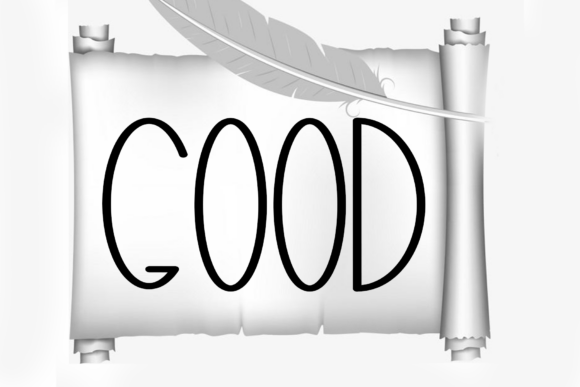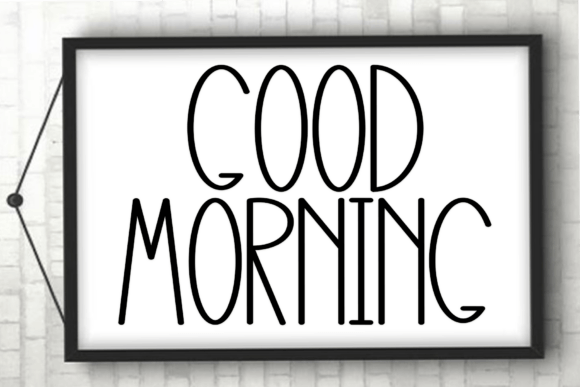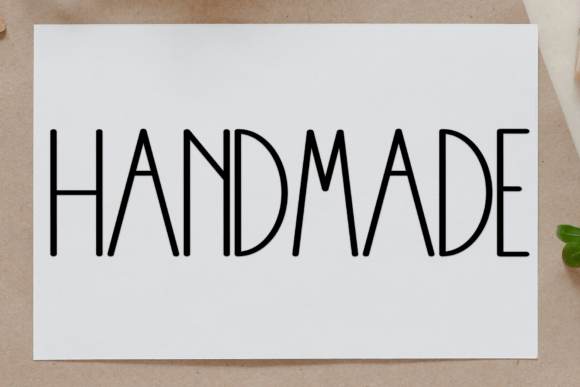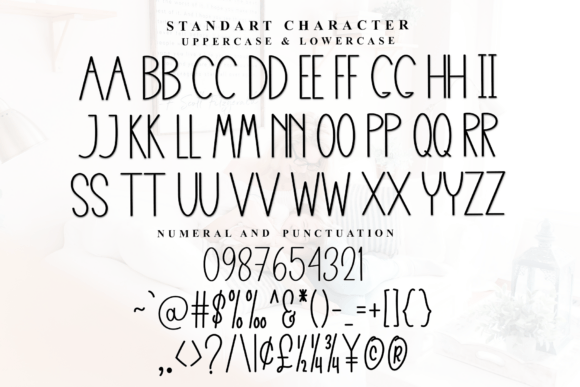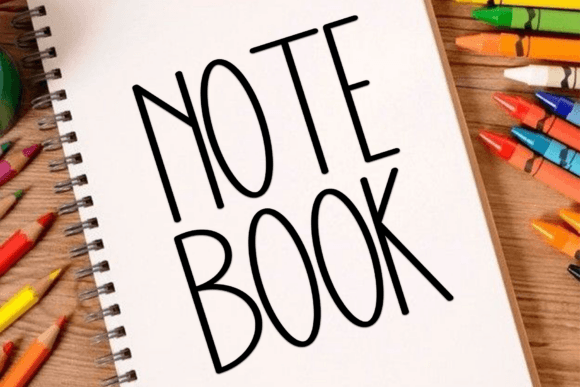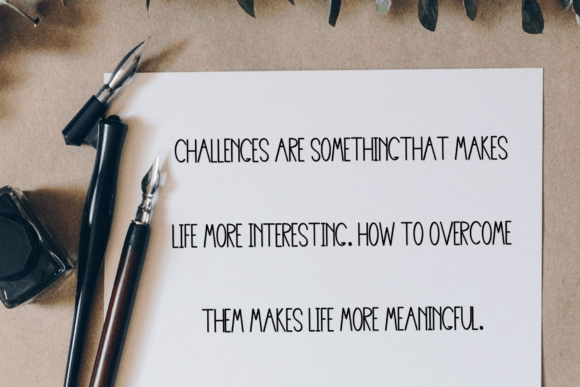
Introduction to Shaker Bottle Font
Have you ever been working on a creative project, and the perfect font eludes you? You’ve scrolled through countless options, but nothing seems to capture the essence of your design. That’s when I stumbled upon the Shaker Bottle Font – a game-changing addition to any designer’s toolkit.
With its lovely and timeless handwritten style, this font is a high-quality design resource that will elevate your creative projects. Whether you’re crafting a logo, branding, or quotes, Shaker Bottle Font is the perfect choice to bring your vision to life. Its unique and beautiful touch will make your design stand out from the crowd.
Key Features of Shaker Bottle Font
- High-quality design resource for creative projects, perfect for branding and marketing materials.
- Includes 5 unique font styles, each with its own distinct characteristics.
- Perfect for use in digital designs, including logos, social media graphics, and website headers.
Honest Review: Shaker Bottle Font
One of the standout features of the Shaker Bottle Font is its versatility. It’s perfect for a variety of creative projects, from food and beverage branding to sports and fitness designs.
- ✨ High-quality design with a clean and modern aesthetic
- ✨ Perfect for creative projects that require a fun and energetic vibe
- ⚠️ Limited character set, which may not be suitable for complex text-based projects
Overall, the Shaker Bottle Font is a great addition to any designer’s toolkit. While it may not be perfect for every project, its high-quality design and versatility make it an excellent resource for creatives looking to add a fun and energetic touch to their work.
Shaker Bottle Font
The Shaker Bottle Font is a unique and creative design resource that can elevate your visual projects. With its high-quality design, this font is perfect for various applications, from branding to creative projects.
Common Use Cases for Shaker Bottle Font
The Shaker Bottle Font is perfect for various creative projects, including branding, marketing materials, social media graphics, and more. Use the font to create visually appealing designs that stand out from the crowd.